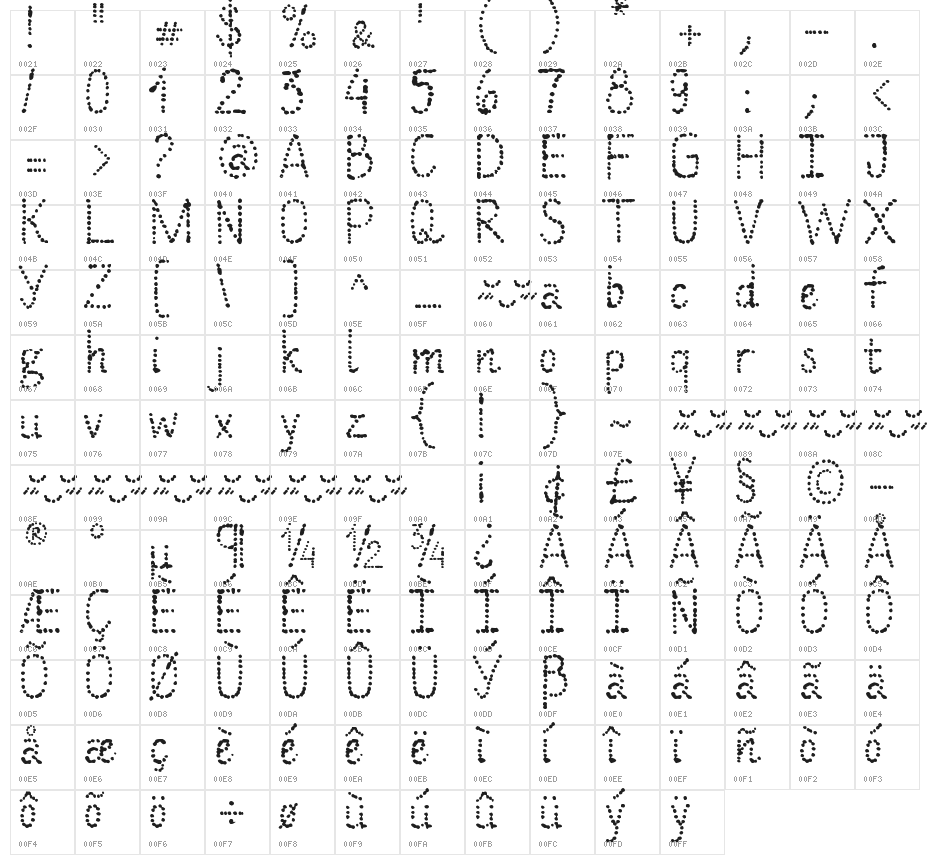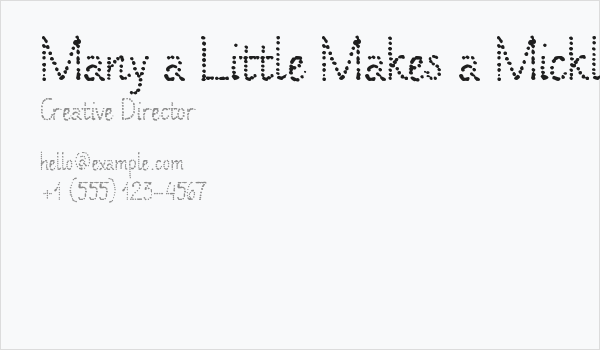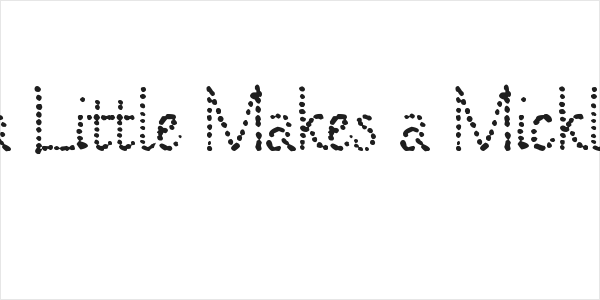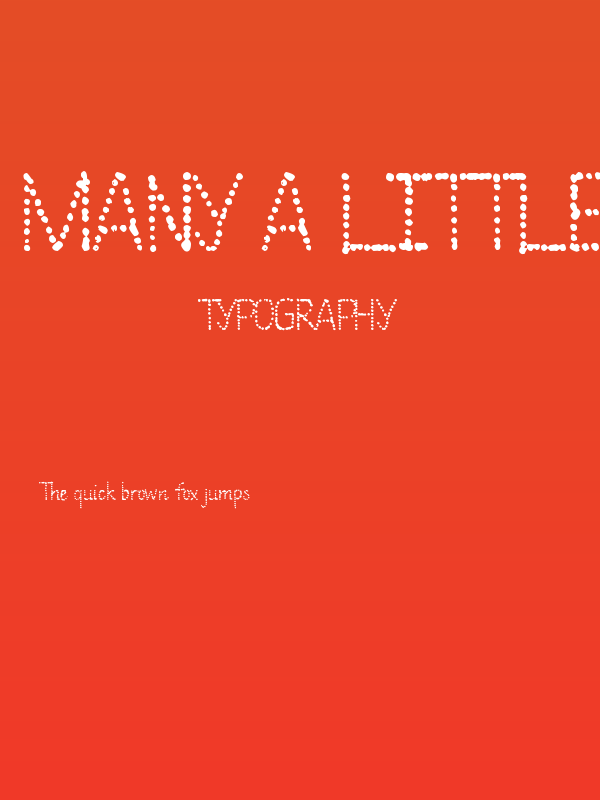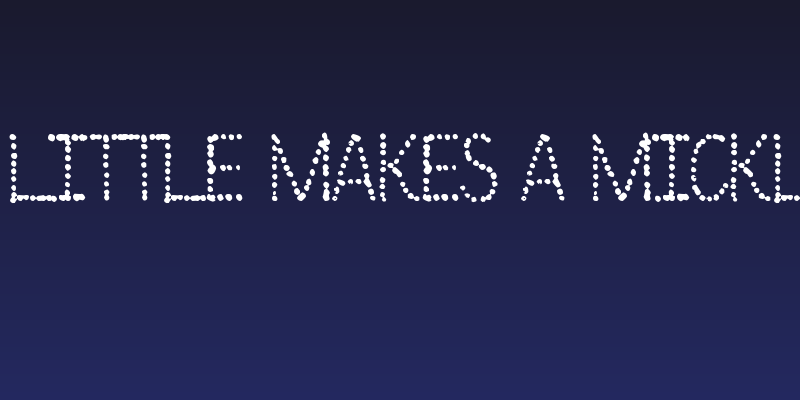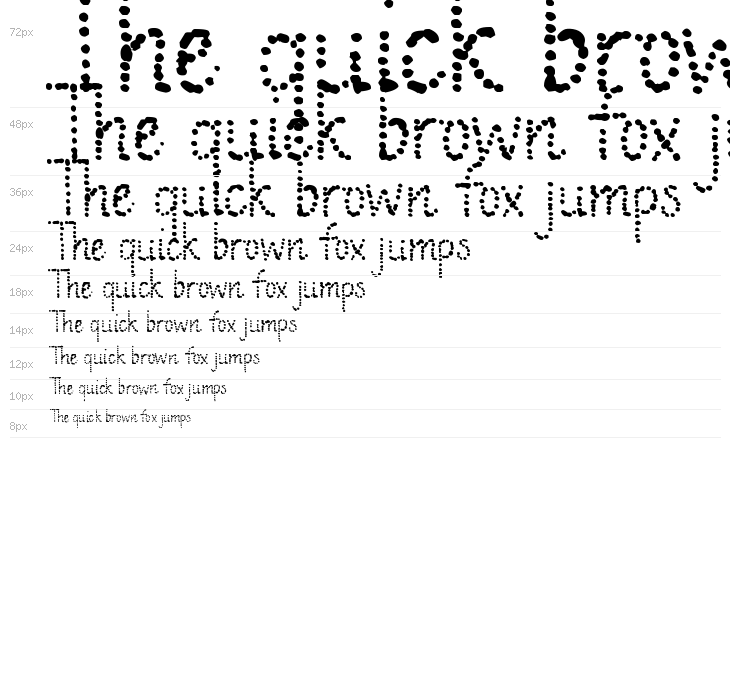
Many a Little Makes a Mickle Demo Font
Many a Little Makes a Mickle Demo Description
This font features a unique dotted design, where each character is composed of a series of small, evenly spaced dots. The uppercase and lowercase letters maintain a consistent style, with rounded edges and a playful, informal appearance. The numbers and special characters follow the same dotted pattern, creating a cohesive look across all elements. This font's distinct style makes it stand out, offering a modern twist on traditional typefaces. The spacing between the dots is uniform, giving it a structured yet whimsical feel.
| Proposed Projects | Ideal for creative projects such as children's books, playful branding, party invitations, and artistic posters. |